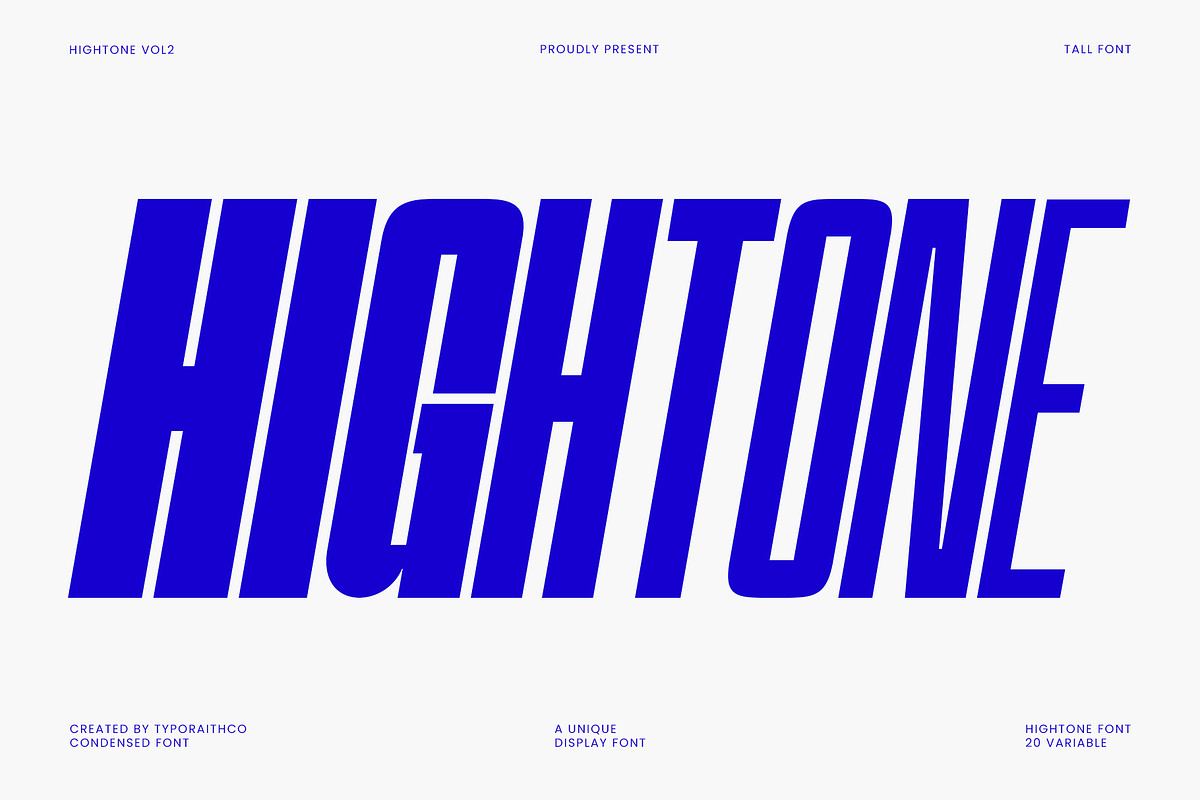
Stop shrinking your message. Start commanding space with Hightone Condensed, a strikingly modern, high-impact display font engineered for boldness and precision. Designed for maximum visual tension and minimal wasted space, this typeface turns every word into a statement. Whether you’re designing a bold poster, crafting a fashion editorial spread, or building a dynamic digital campaign, Hightone Condensed delivers undeniable presence.
Bold by Design: The Power of Vertical Dominance
Hightone Condensed is built for impact. Its defining feature—extreme verticality—creates a sense of upward momentum and authority. The tall, narrow letterforms are not just compressed; they’re curated for rhythm, control, and unapologetic presence. This isn’t just typography—it’s architectural design in letterform.
- Extreme Verticality: Each character is stretched to amplify height, making headlines soar and creating a dynamic sense of energy on the page.
- Tight, Precise Spacing: Aggressively condensed to maximize space efficiency without sacrificing clarity—perfect for dense layouts where every pixel counts.
- Sharp, Clean Edges: Crisp serifs and geometric precision ensure a professional finish across all sizes and mediums.
- Clean, Modern Aesthetic: Free from clutter, Hightone Condensed reflects a minimalist yet powerful design philosophy that speaks to contemporary taste.
Master Your Message with 20 Variable Font Styles
One size does not fit all—especially when you’re aiming for perfection. Hightone Condensed offers a full suite of 20 variable font styles, ranging from delicate Thin to powerful Black. This isn’t just a font family—it’s a complete typographic toolkit.
Whether you’re dialing down for a minimalist fashion label or dialing up for a high-contrast music album cover, the variable axis gives you total control. Adjust weight, width, and optical size dynamically—without switching files or breaking workflow continuity.
- Dynamic Weight Control: Seamlessly transition from subtle Thin to heavy Black for visual hierarchy and drama.
- Variable Width Integration: Fine-tune the narrowness of individual glyphs for unique layout solutions.
- Optical Size Adjustments: Automatically optimize character shapes for print, screen, or large-format display—no manual tweaking needed.
- One File, Infinite Possibilities: Use a single variable font file across all projects for efficient asset management.
Where Hightone Condensed Shines: Real-World Applications
This font is built for the spotlight. Use it wherever impact, precision, and modernity converge.
- Posters & Campaigns: Make your audience pause. Hightone Condensed commands attention in transit ads, event posters, and promotional visuals.
- Editorial & Magazine Design: Elevate headlines and pull quotes with a font that feels both cutting-edge and refined. Perfect for fashion, tech, and lifestyle publications.
- Fashion Branding: From runway labels to packaging, Hightone Condensed adds a touch of high-end sophistication and modernity.
- Web & App Interfaces: Use it for hero text, CTAs, or navigation labels—where visibility and elegance are key.
- Album Art & Music Projects: A perfect match for genre-defying artists who want their branding to reflect innovation and boldness.
- Logo Systems: Create compact, striking logos that are scalable, distinct, and instantly memorable.
Technical Excellence for Professional Designers
Hightone Condensed is not just about looks—it’s built for real-world performance.
- Multilingual Support: Fully supports 90+ languages, including Latin, Cyrillic, Greek, and extended scripts—ideal for global brands.
- Professional Font Metrics: Optimized kerning, ligatures, and spacing ensure flawless alignment across all applications.